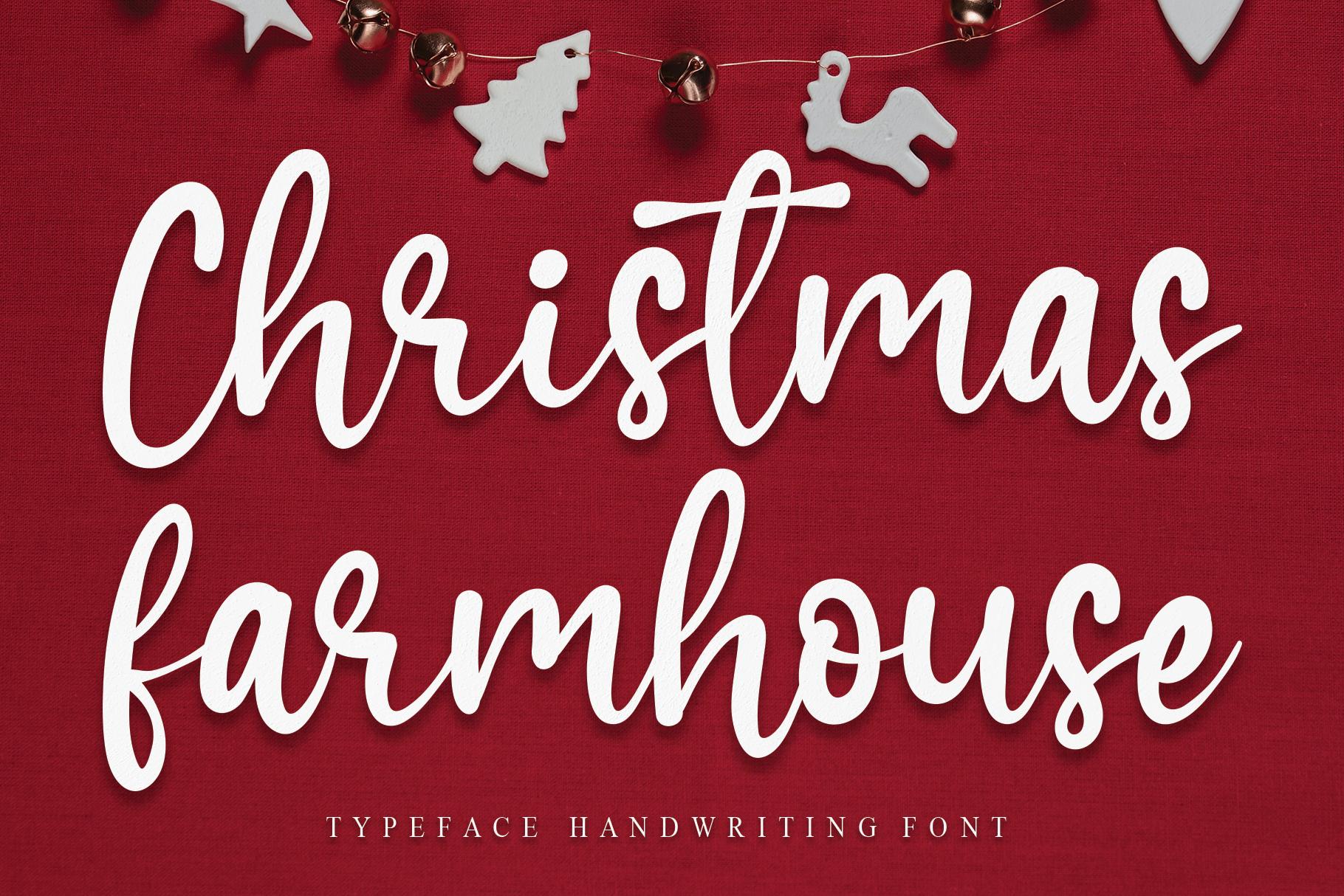
Christmas Farmhouse Font Description
Christmas Farmhouse is a joyful and cursive handwritten font, with characters dancing along the baseline. Fall in love with its authentic feel and use it to create gorgeous wedding invitations, beautiful stationary art, eye-catching social media posts, and cute greeting cards.